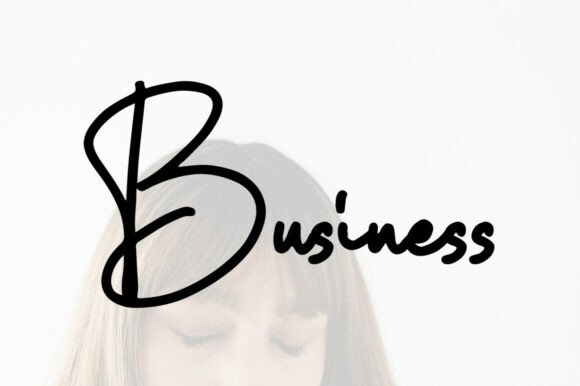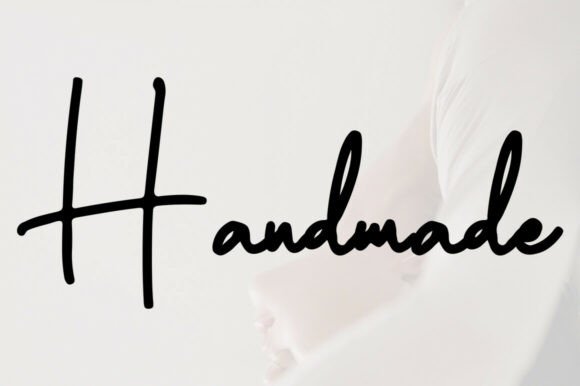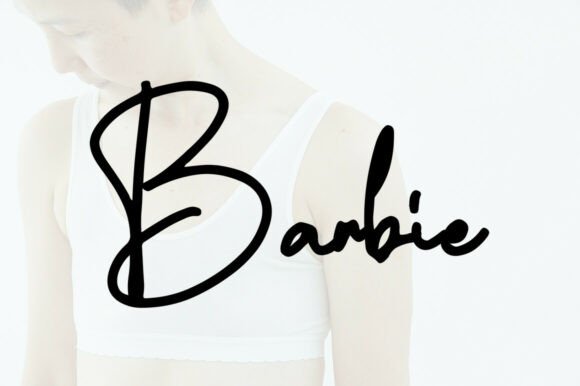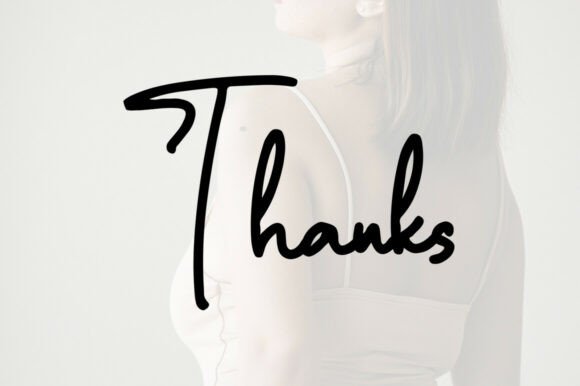
Discover the Beauty of Homestay Font
As designers, we’ve all been there – staring at a blank page, trying to conjure up the perfect combination of typography and visual elements to bring our creative vision to life. And then, like a breath of fresh air, it happens – a font that perfectly captures the essence of our design. For me, that font is Homestay, a stunning script font that embodies elegance and sophistication.
Homestay Font is a beautiful, well-balanced, and graceful script font, defined by smooth curves that exude refinement. Its versatility makes it perfect for fashion branding or editorial designs, where a touch of sophistication is essential. Whether you’re working on a high-end fashion campaign or a luxury lifestyle magazine, Homestay Font is an invaluable asset to your design toolkit.
With its unique blend of classic and modern elements, Homestay Font is a valuable addition to any designer’s arsenal, offering endless possibilities for creative expression. By incorporating Homestay Font into your designs, you can elevate your work to new heights and leave a lasting impression on your audience.
Homestay Font Key Features
- Size: The font family consists of 6 weights, ranging from Thin (100) to Bold (700), providing a comprehensive range of styles for various design needs.
- Unique Characteristics: The font features a modern, elegant design with a subtle flair, making it perfect for use in logos, branding, and body text.
- Language Support: Homestay Font supports a wide range of languages, including Latin, Cyrillic, and Greek, making it a versatile choice for global design projects.
- Scalability: The font is designed to be highly scalable, allowing it to adapt seamlessly to various font sizes and resolutions, ensuring crisp and clear readability.
Designer Review: Homestay Font
Overall, I have mixed feelings about the Homestay Font. It has some great features, but it also has some limitations that make it less than ideal for certain designs.
- Casual feel: The Homestay Font has a very casual, friendly feel to it that works well for personal projects, blogs, or social media sites.
- Unique style: The font has a unique style that sets it apart from more common fonts like Arial or Helvetica.
- Good for body text: The font is clear and easy to read, making it a good choice for body text.
- Not ideal for titles: While the font is great for body text, it’s not the best choice for titles or headlines, as it can be difficult to read in larger sizes.
- Lack of variation: The font is quite straightforward and lacks the variation and flair of some other fonts.
- Not suitable for formal designs: The casual feel of the font makes it unsuitable for formal designs, such as business reports or academic papers.
Overall, I think the Homestay Font is a solid choice for casual designs, but it’s not the best choice for more formal or complex designs. It’s a good option to consider, but it’s not a go-to font for me.
Tips for Getting the Most Out of Homestay Font
Use Homestay Font to create a warm and inviting atmosphere in your designs. Experiment with different font sizes and styles to create visual hierarchy and emphasize important information.
Use Homestay Font for:
- Travel and hospitality branding
- Home decor and interior design projects
- Wed